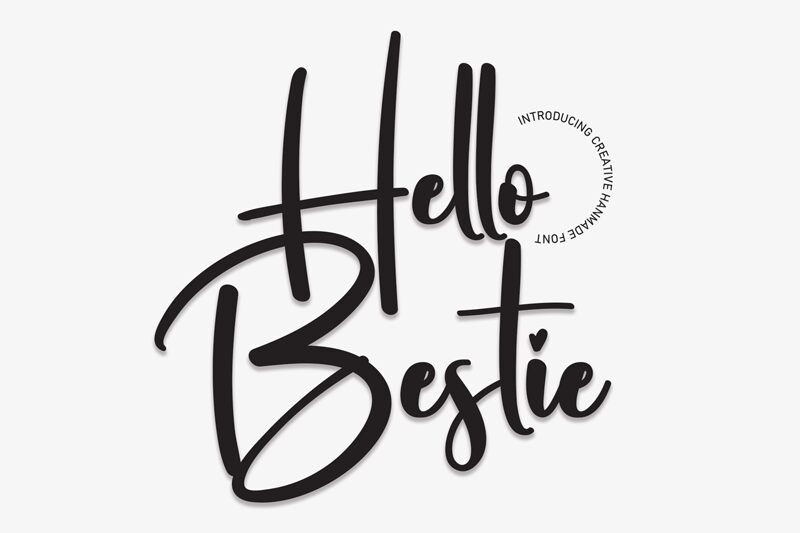
Hello Bestie
Hello Bestie is a charming handwritten font by Scratchones. With its semi-light weight, it adds a touch of elegance and playfulness to any project.
This font is perfect for greeting cards, invitations, and personal stationery, giving your messages a warm and friendly feel. Its organic strokes and natural flow make Hello Bestie an ideal choice for branding projects that desire a personal touch, such as boutique shops or artisanal products.
Whether used in headings or body text, this font effortlessly conveys a sense of sincerity and creativity.
The latest style letters are perfect for wall displays, wedding invitations, social media post logos, advertisements, product packaging, product designs, labels, photography, watermarks, invitations, stationery, and any project that requires taste handwriting.